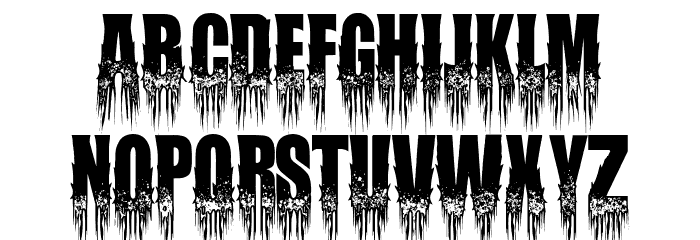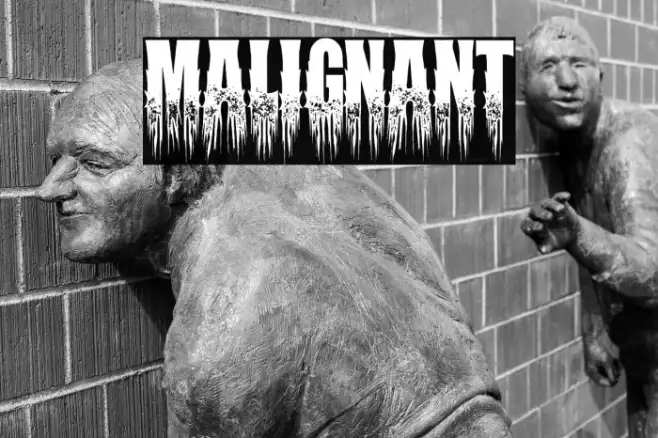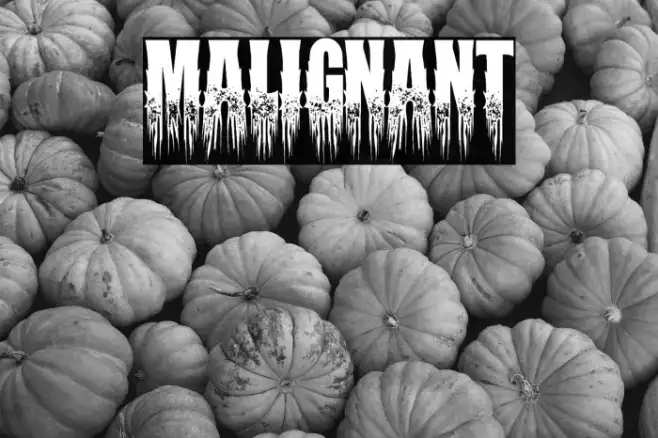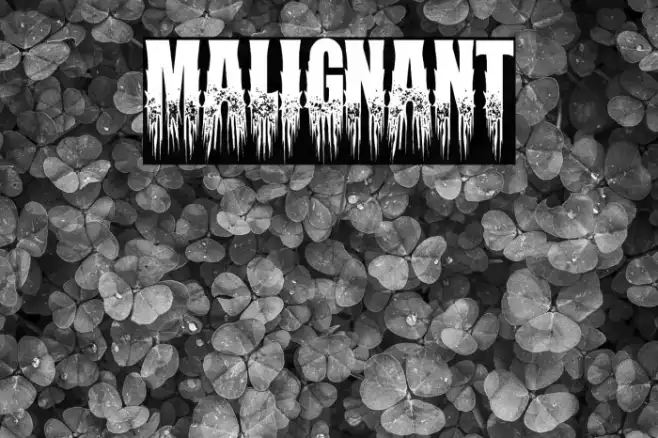
Malignant Font
This font features a bold and dramatic style with a horror-themed aesthetic. The characters are heavily stylized with dripping, jagged edges that give the impression of decay or melting. This creates a striking visual impact, making it ideal for designs that require a sense of fear or suspense. The uppercase letters are uniform in height, with a consistent width that contributes to a cohesive appearance. The font's unique characteristics make it stand out, particularly in settings that aim to evoke a sense of unease or mystery.
A bold, horror-themed font with dripping, jagged edges.
- Proposed Projects: Ideal for horror movie posters, Halloween event flyers, or spooky-themed merchandise.